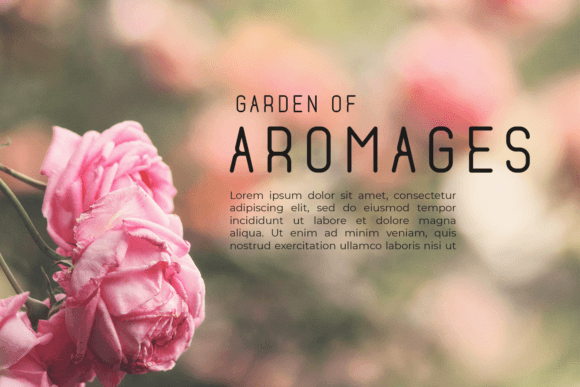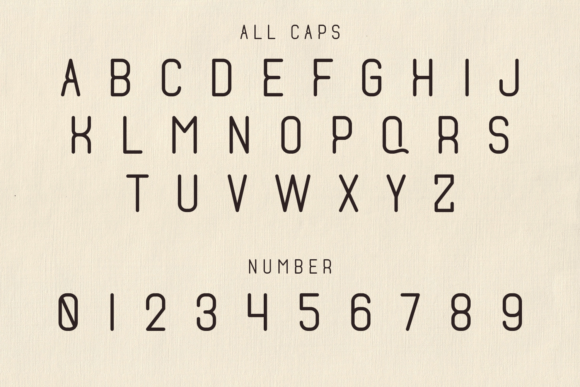
The Designer’s Delight: Uncovering the Charm of Befpro Font
I’ll never forget the time I was working on a project for a trendy client, and I just couldn’t find the right font to match their vibe. I scrolled through pages of Google Fonts, tried out a dozen different sans serifs, but nothing seemed quite right. That’s when I stumbled upon Befpro Font – a cool and unique sans serif font that instantly caught my eye. ✨
In this article, I’ll share my experience with Befpro Font, its features, and how to make the most of it in your designs. Whether you’re a designer, crafter, or creative hobbyist, you’ll learn why Befpro Font could be the perfect addition to your font library.
An Honest Review of Befpro Font
- ✨ Highly detailed and neatly crafted: Befpro Font is meticulously designed, with clean lines and a crisp appearance that makes it perfect for a wide range of projects.
- ✅ Versatile: This font can adapt to any topic or theme, making it a valuable asset to your font collection.
- 💡 Unique and creative: Befpro Font stands out from more common sans serifs, offering a fresh and distinctive look.
While Befpro Font is an excellent choice, there are a few things to keep in mind: 🤔
- ⚠️ Legibility at small sizes: Like many sans serifs, Befpro Font may lose some legibility when used at very small sizes (below 8-10 points). Make sure to test it in your design before finalizing.
The Designer Inspiration Behind Befpro Font
While the true story behind Befpro Font’s creation may be unknown, it’s easy to imagine that its designer was inspired by modernist architecture and typography. Perhaps they aimed to create a font that would bring a sense of freshness and sophistication to any design project. 💡
| Is Befpro Font suitable for body text? | While Befpro Font is legible, it’s best suited for headings and titles. For body text, consider a font with more traditional proportions. |
In conclusion, Befpro Font is an excellent addition to any designer’s font library. Its unique and versatile design makes it perfect for a wide range of projects. By understanding its features, quirks, and best uses, you can unlock the full potential of Befpro Font in your designs.